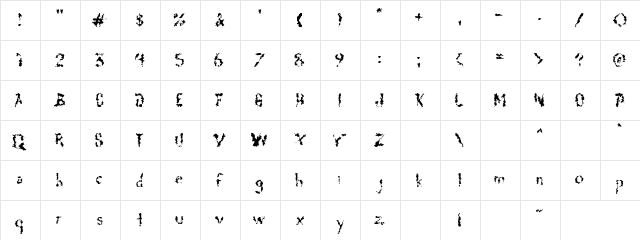
Tail Paint Regular
Design Context for Tail Paint Typeface
Tail Paint is a composed and adaptable typeface that performs quietly and consistently across a wide range of design contexts.